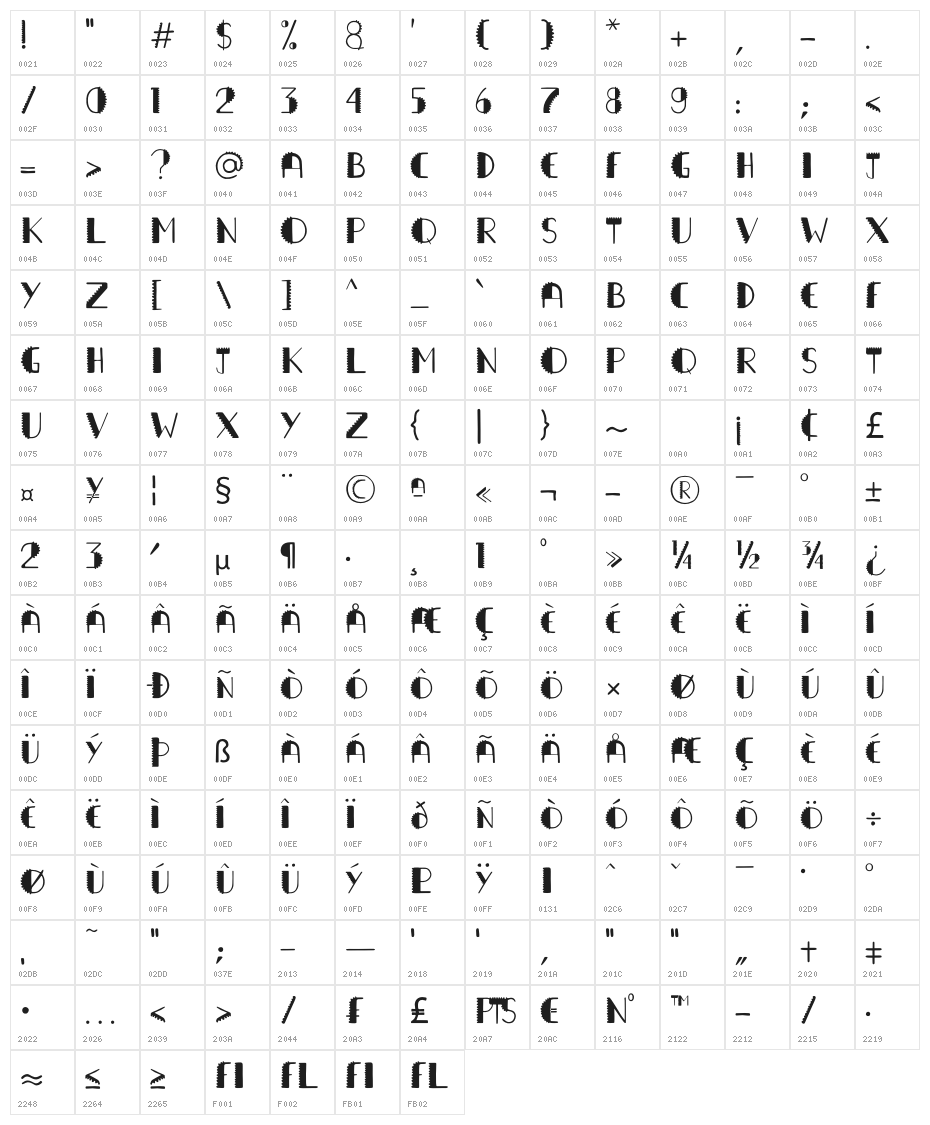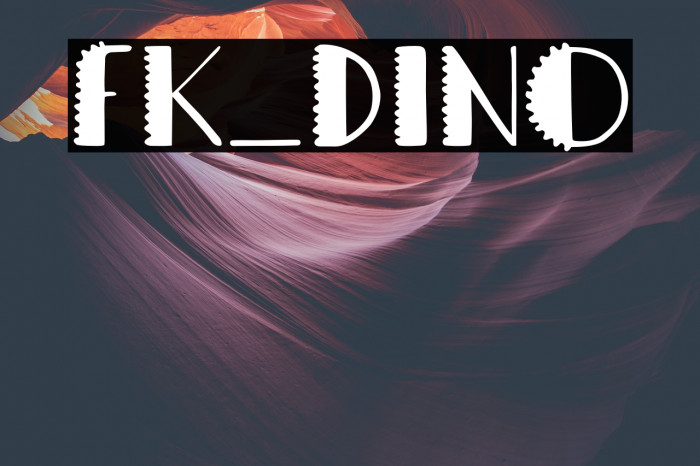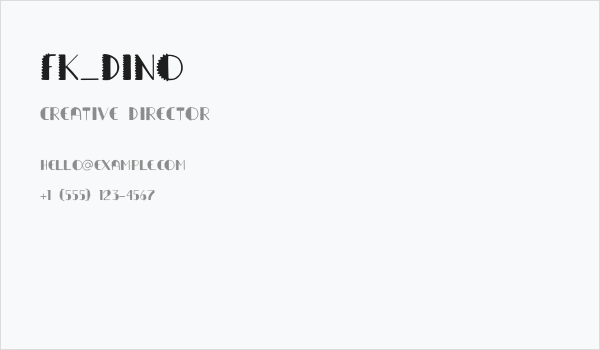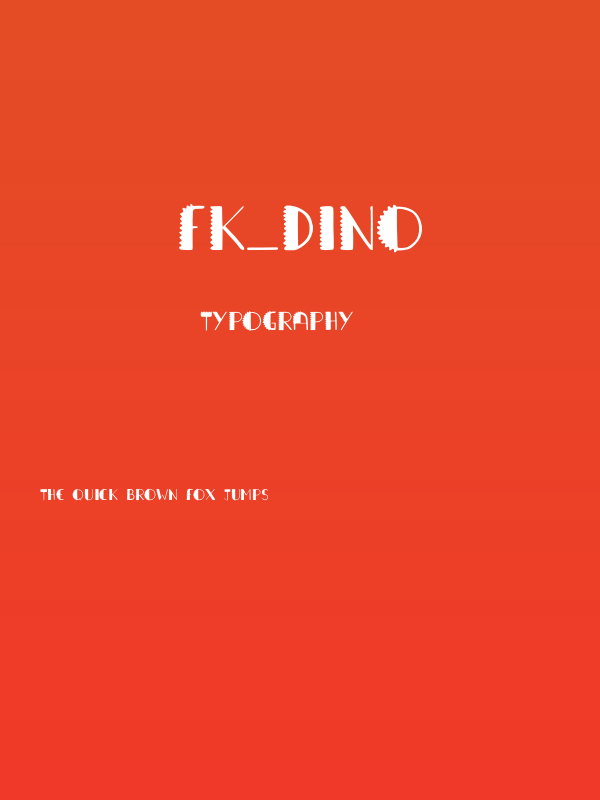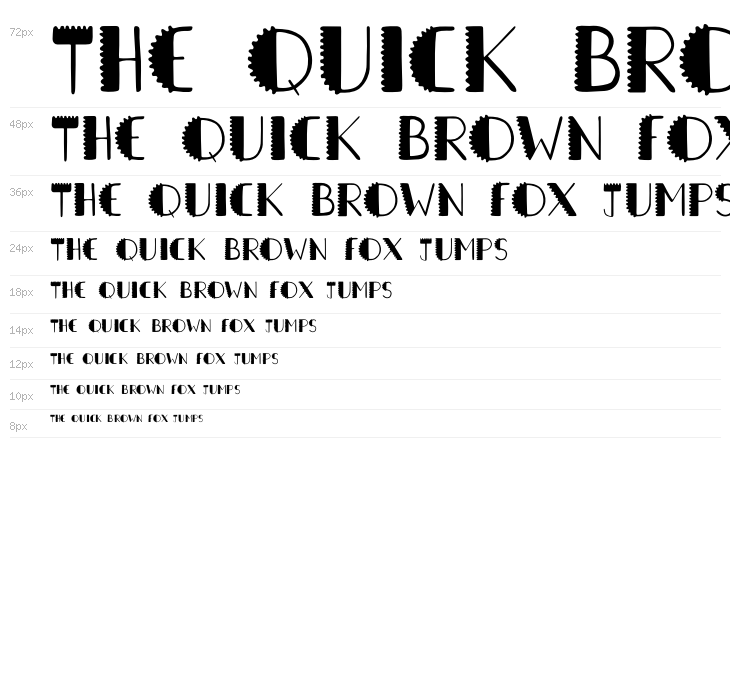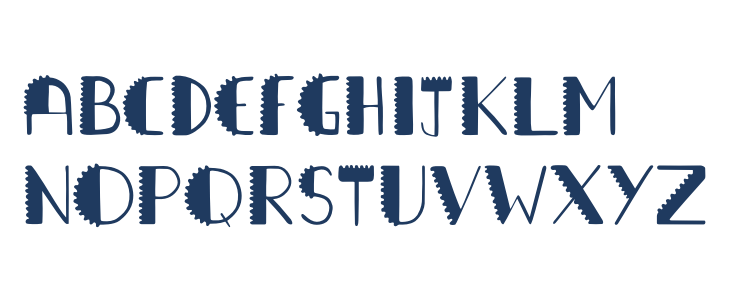
FK_Dino Font
FK_Dino Description
This font features a playful and bold design with a prehistoric theme. Each character is adorned with jagged, dinosaur-like spikes, giving it a unique and eye-catching appearance. The uppercase and lowercase letters maintain a consistent style, with a mix of straight and curved lines that create a dynamic visual effect. The numbers and special characters follow the same thematic design, ensuring a cohesive look across all elements. The font's boldness and distinctive style make it ideal for projects that require a fun and adventurous touch.
| Proposed Projects | Ideal for children's book covers, themed party invitations, playful branding, and educational materials. |